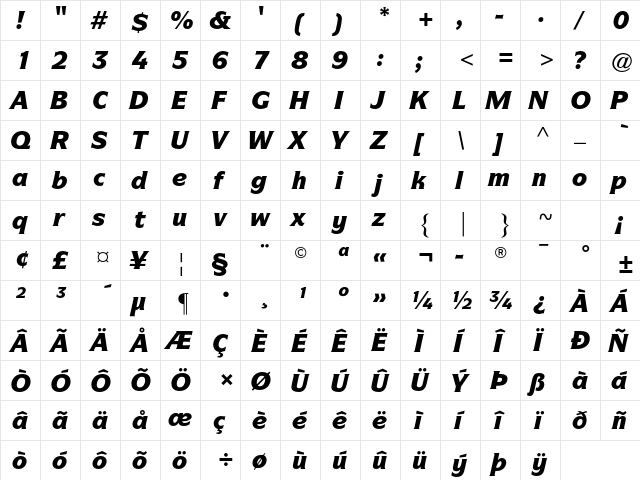
ITC Symbol Std Black Italic Font Preview
ITC Symbol Std Black Italic
ITC Symbol Std Black Italic Font Details
| Style | Black Italic |
| Designer | Aldo Novarese |
Design Context for ITC Symbol Std Typeface
ITC Symbol Std takes a measured approach to typography — its balanced proportions and neutral character make it a reliable workhorse for both digital and print work. The slanted form adds forward momentum and visual energy.
Pro Tip: Try ITC Symbol Std for annotation and caption copy alongside an upright companion — the contrast in angle creates a dynamic but ordered typographic system.